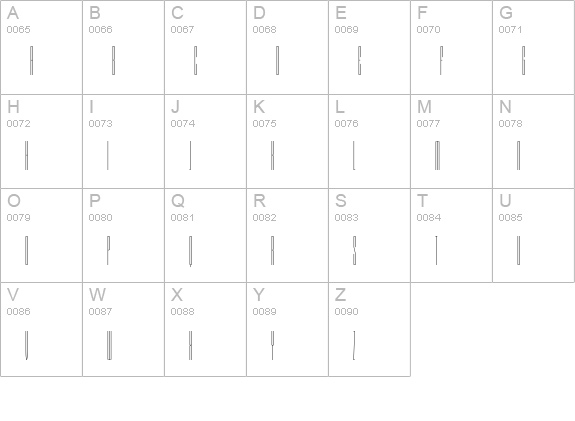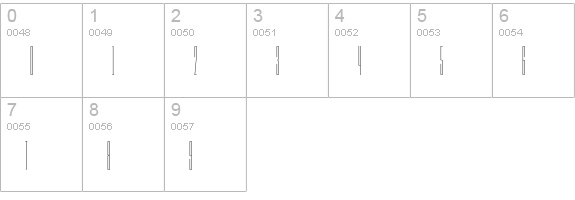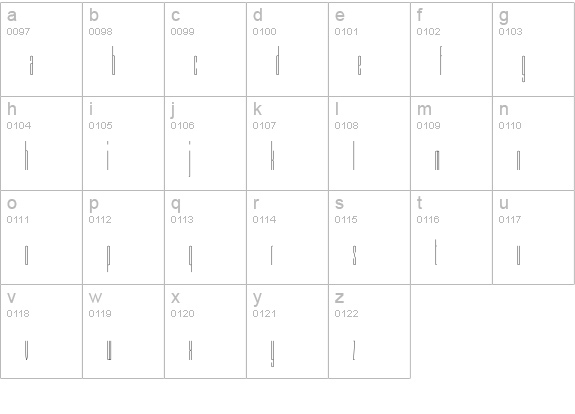
Armada-ThinCompressed Font Details
Armada-ThinCompressed is a sleek and elegant font that exudes sophistication and modernity. Its thin and compressed design makes it perfect for creating a clean and contemporary look in your designs. The precise lines and sharp angles give this font a minimalist yet stylish appeal that is sure to make a statement. Whether you are designing a logo, a website, or any other project, Armada-ThinCompressed will add a touch of class and professionalism. Best of all, Armada-ThinCompressed is completely free to download at FontsMarket.com. This means you can easily access this stunning font and use it in your projects without any cost. Don't miss out on the opportunity to enhance your designs with the beauty and versatility of Armada-ThinCompressed. Download it now and elevate your creations to the next level.